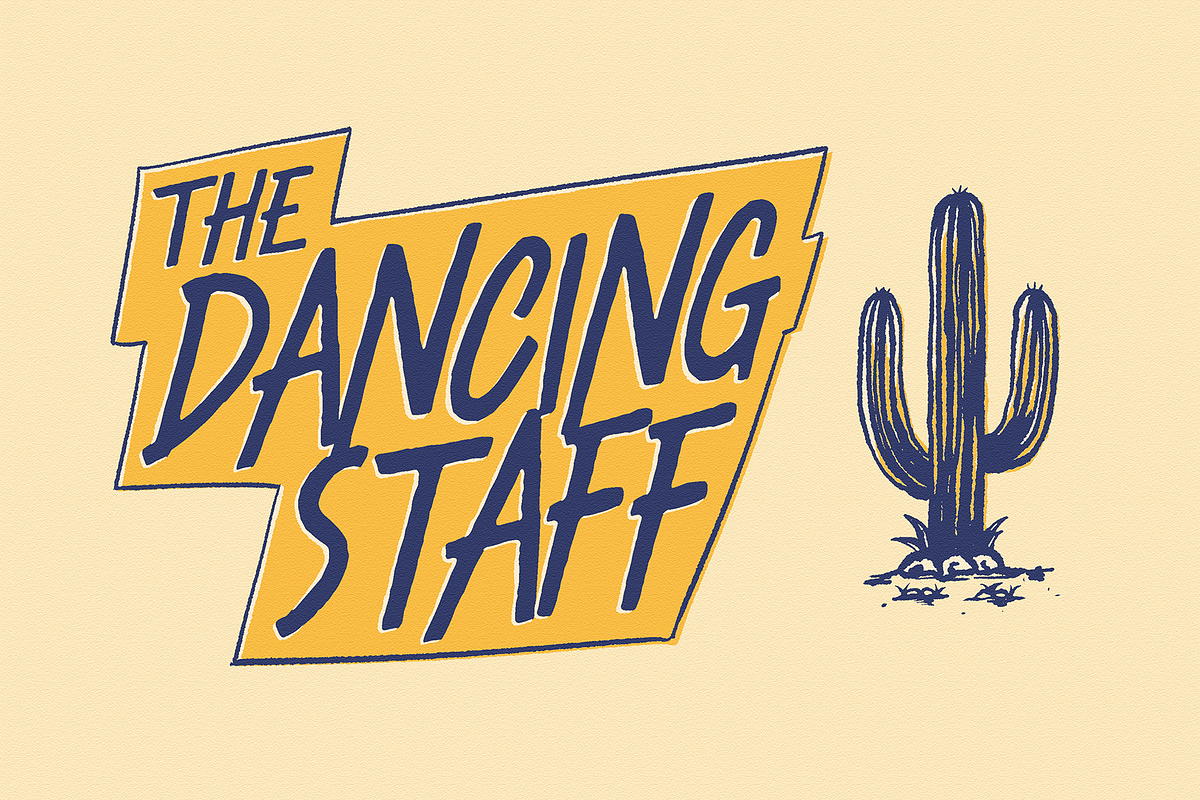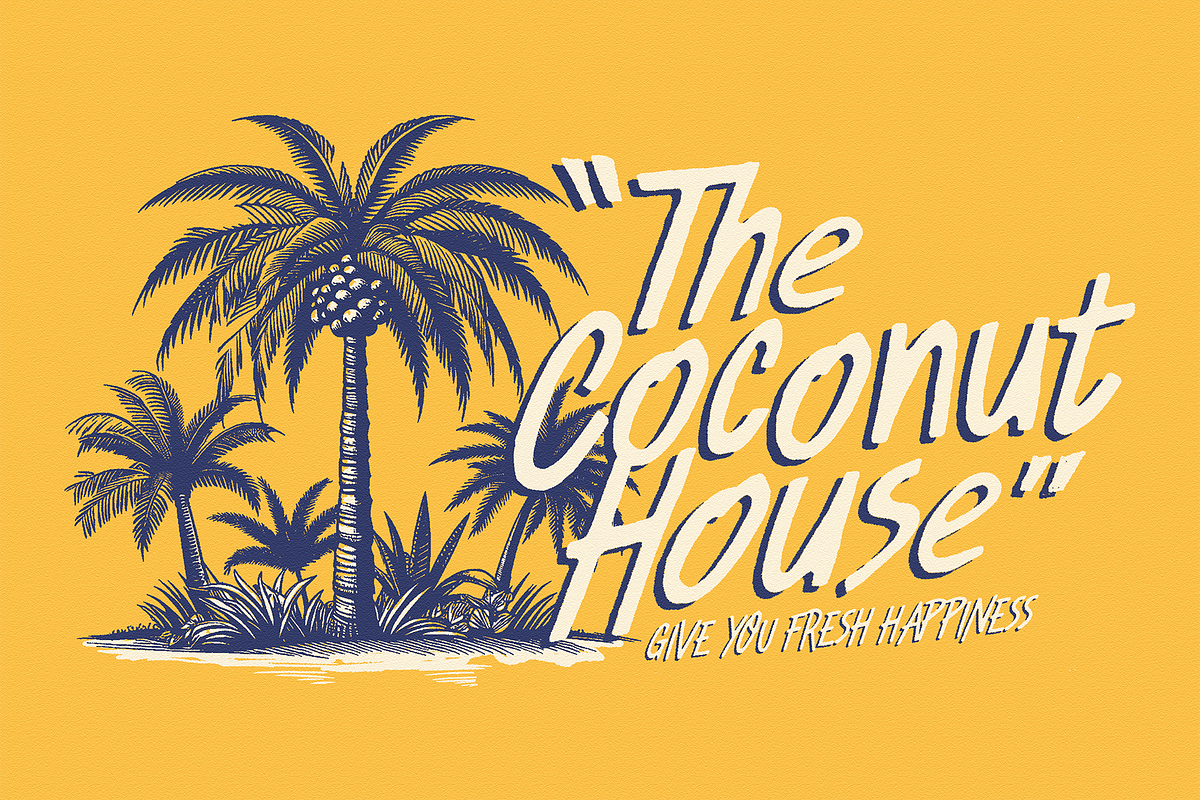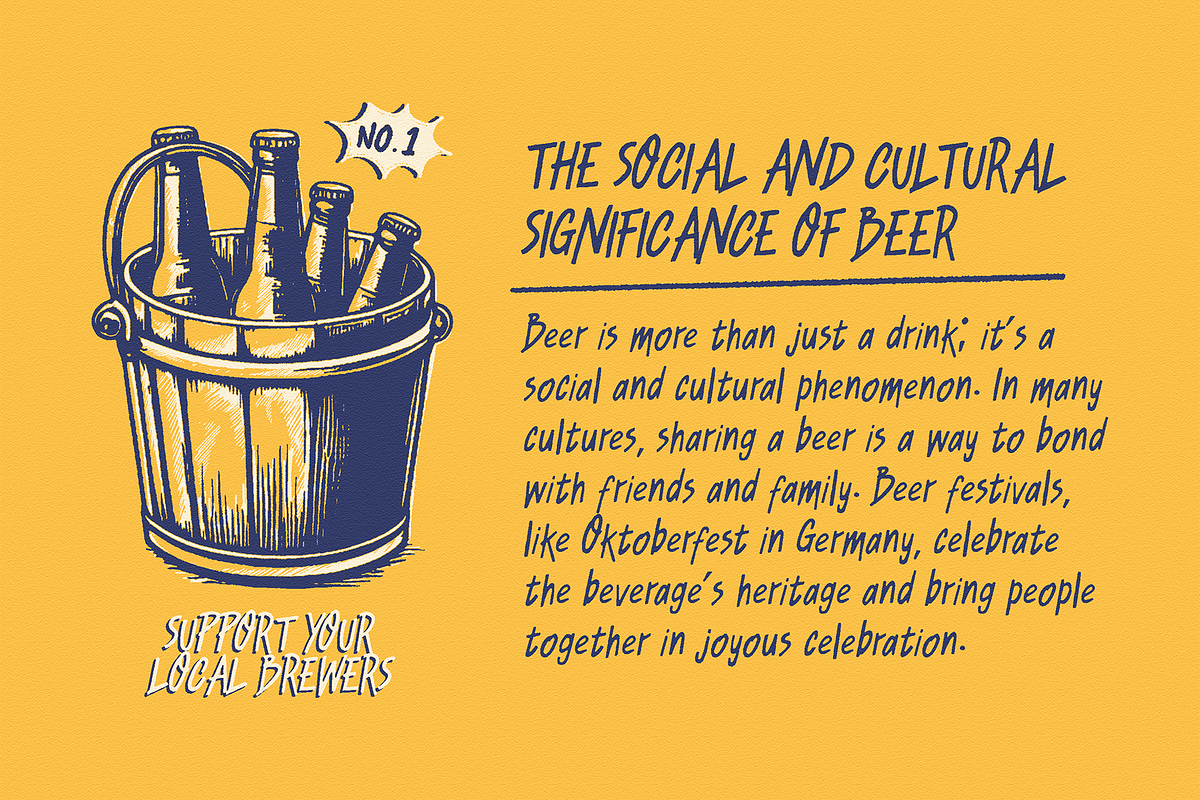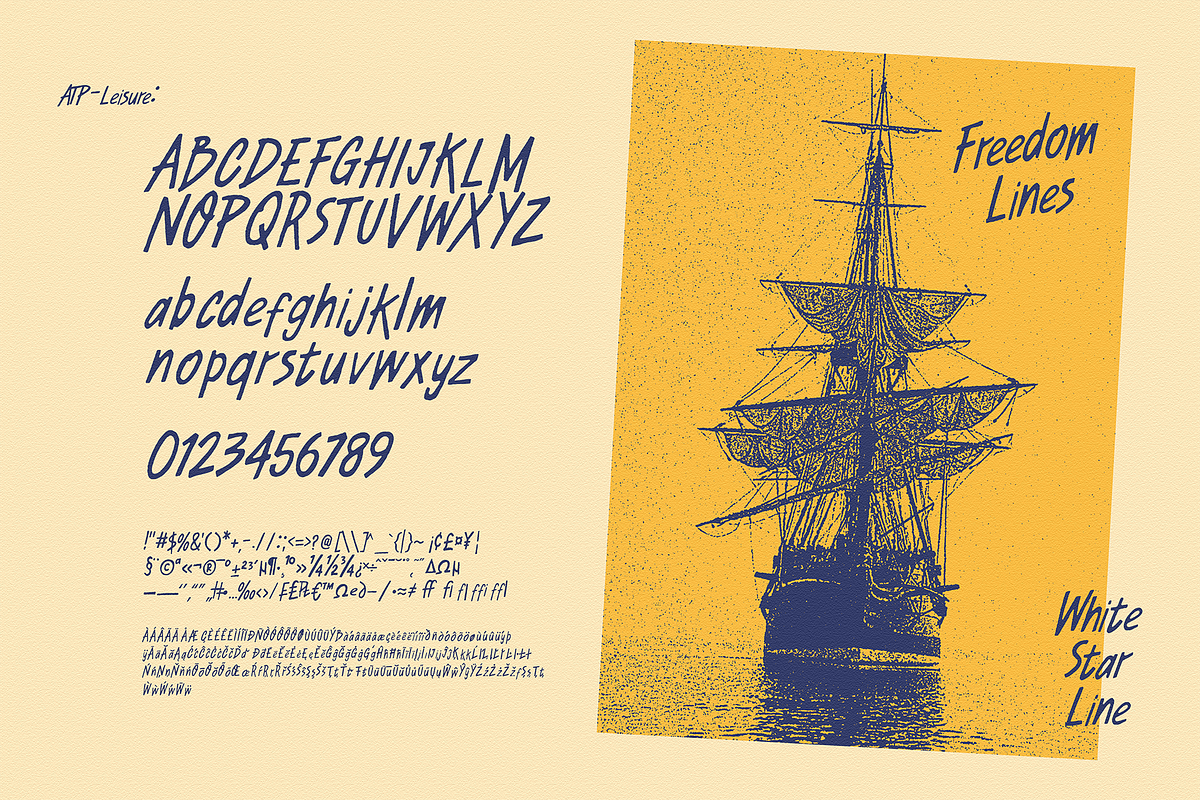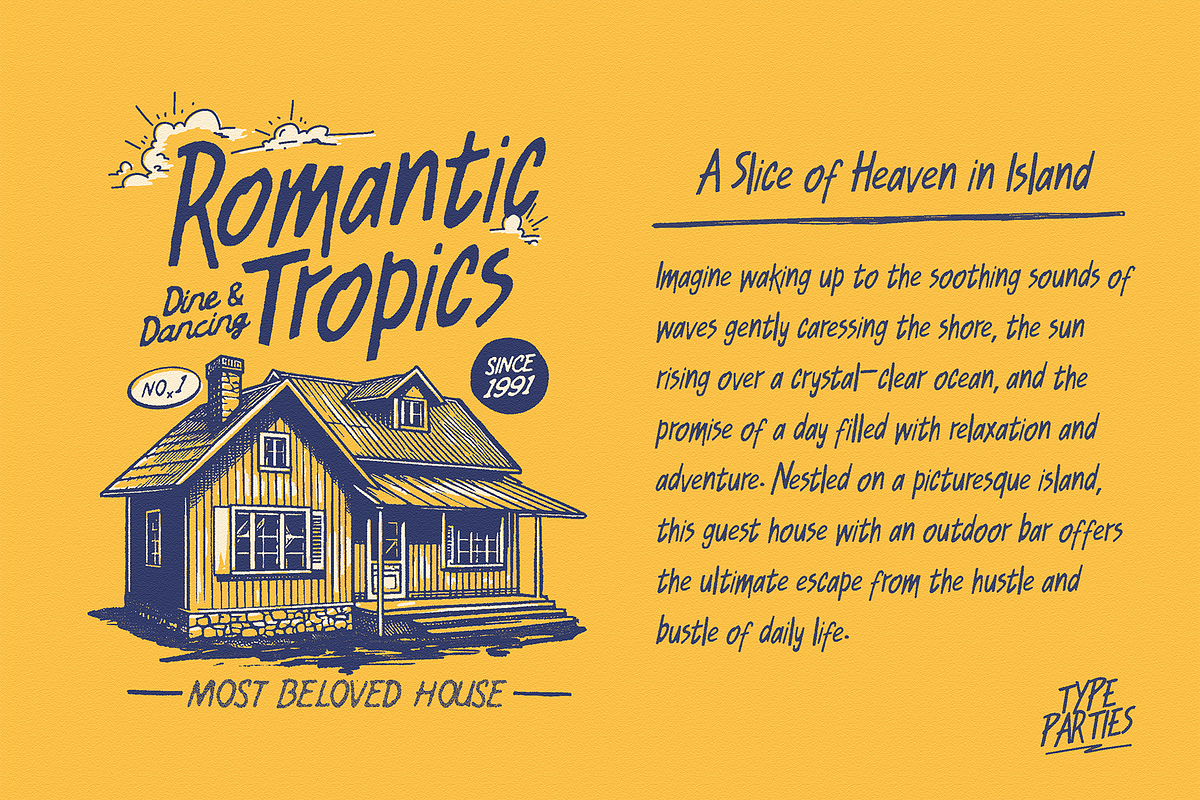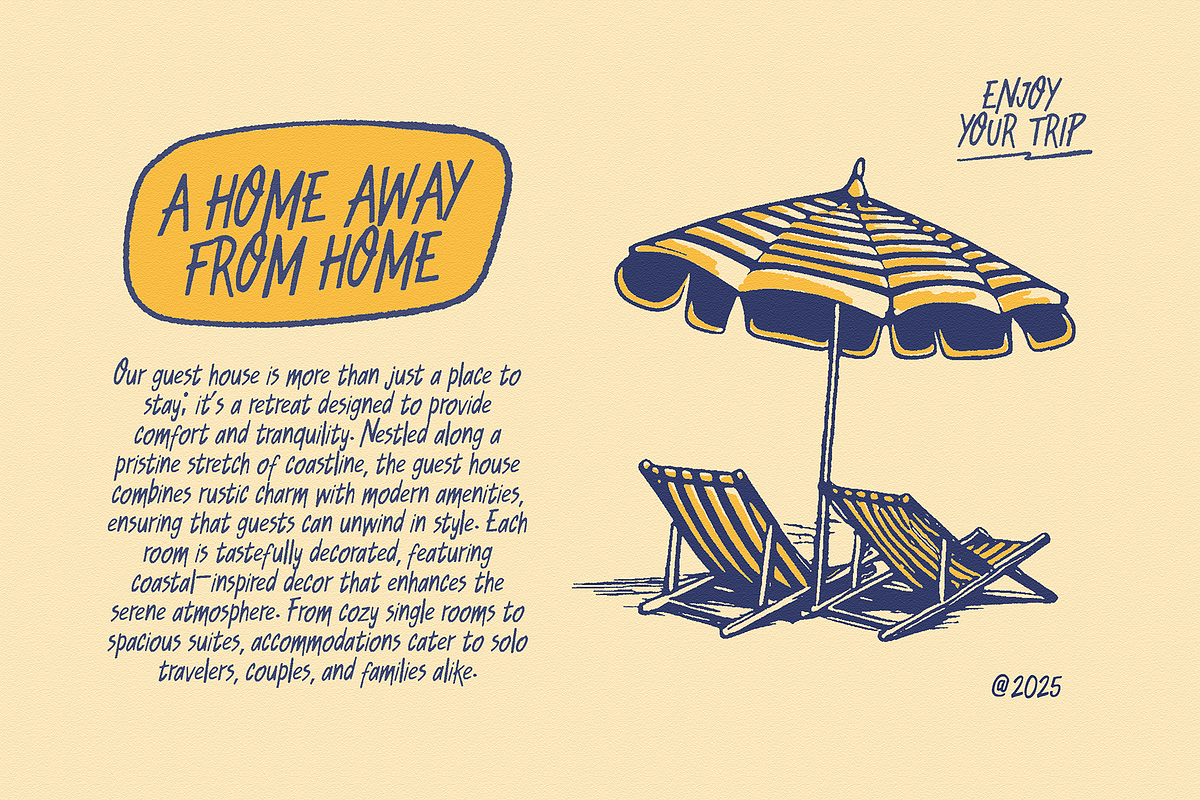
Leisure Handwriting Font
This font is like your favorite weekend buddy—relaxed, a little goofy, and full of good vibes. The tall, playful letters lean just enough to say “I’m chill, but still got style.” Great for sunny posters, beachy invites, or anything that says “let’s not take life too seriously.” It’s handwritten, a bit quirky, and totally charming—just like doodles on a lazy Sunday afternoon.